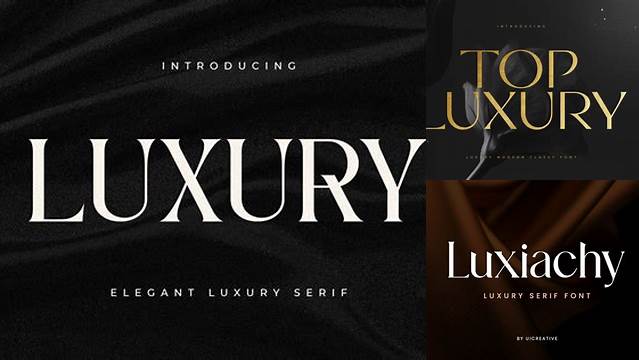
Free Luxury Fonts For Commercial Use: Download Now!
Hey guys! Are you on the hunt for that perfect luxury font to elevate your designs without breaking the bank? You've landed in the right place! Finding a luxury font that’s both free and available for commercial use can feel like searching for a needle in a haystack. But don't worry, we're here to guide you through the process and introduce you to a treasure trove of options. Whether you're designing logos, websites, marketing materials, or anything in between, the right luxury font can make all the difference. Let's dive into the world of luxury fonts and discover how you can snag them for your projects without spending a dime!
Free Serif Fonts for Luxury Designs
When it comes to exuding elegance and sophistication, serif fonts are often the go-to choice. These fonts, characterized by their small decorative strokes (serifs) at the end of each letter, have a timeless quality that makes them perfect for luxury branding. Think of high-end fashion magazines, classic book covers, and upscale restaurant menus – chances are, they're using a serif font. For your luxury font needs, the key is to find one that strikes the right balance between tradition and modernity. A well-chosen serif font can instantly elevate your design, giving it a polished and refined look. You will find plenty of these if you search for luxury font options.
Classic Serif Fonts for Commercial Projects
Classic serif fonts are the cornerstone of luxury design. Fonts like Garamond, Times New Roman, and Baskerville have been used for centuries and continue to be popular choices for their readability and elegance. These fonts evoke a sense of history and refinement, making them ideal for projects that aim to convey trustworthiness and sophistication. When selecting a classic serif for your commercial projects, consider the overall tone you want to achieve. Garamond, for example, has a slightly softer, more humanist feel, while Times New Roman is more formal and authoritative. Baskerville, with its clean lines and balanced proportions, offers a versatile option that works well in a variety of contexts. Remember, the goal with any luxury font is to create a visual experience that speaks to the quality and prestige of your brand or project.
Modern Serif Fonts for High-End Branding
For a more contemporary take on luxury, modern serif fonts are an excellent choice. These fonts, characterized by their high contrast between thick and thin strokes and their sharp, clean serifs, offer a sleek and sophisticated aesthetic. Fonts like Playfair Display, Didot, and Bodoni are popular examples of modern serifs that can add a touch of glamour to any design. Playfair Display, with its elegant curves and delicate details, is perfect for headlines and titles. Didot, known for its high contrast and refined appearance, is a favorite in the fashion industry. Bodoni, with its bold strokes and strong presence, is ideal for creating impactful logos and branding materials. When using modern serifs, pay attention to spacing and kerning to ensure optimal readability and visual appeal. A well-executed modern serif luxury font can make your brand stand out in a competitive market.
Free Downloadable Serif Fonts for Luxury Branding
Free Sans-Serif Fonts for Luxury Designs
While serif fonts often steal the spotlight when it comes to luxury design, sans-serif fonts can also play a significant role in creating a sophisticated and modern aesthetic. Sans-serif fonts, characterized by their clean, minimalist lines and lack of serifs, offer a more contemporary feel. They are particularly well-suited for digital applications, such as websites and mobile apps, where readability is paramount. However, with the right styling and context, sans-serif fonts can also be incredibly effective in print materials, adding a touch of understated elegance to your luxury designs. The key to using sans-serif fonts in a luxury context is to choose fonts that are well-designed, balanced, and versatile.
Clean Sans-Serif Fonts for Commercial Use
Clean sans-serif fonts are the workhorses of the design world, offering excellent readability and versatility. Fonts like Open Sans, Lato, and Montserrat are popular choices for their clean lines and neutral appearance. These fonts are incredibly versatile and can be used in a wide range of applications, from body text to headlines. Open Sans, designed with a focus on readability, is an excellent choice for websites and apps. Lato, with its semi-rounded details, offers a friendly and approachable feel. Montserrat, inspired by the urban typography of Buenos Aires, has a modern and geometric aesthetic. When using clean sans-serif fonts in a luxury context, consider pairing them with a more decorative serif font to create visual contrast and add interest. You can create a sophisticated and balanced design by using them as your luxury font option.
Modern Sans-Serif Fonts for Upscale Branding
For a more upscale and contemporary look, modern sans-serif fonts are an excellent option. These fonts often feature geometric shapes, clean lines, and a minimalist aesthetic. Fonts like Futura, Avenir, and Proxima Nova are popular choices for their sleek and sophisticated appearance. Futura, with its geometric shapes and timeless design, is a classic choice for luxury branding. Avenir, inspired by Futura, offers a softer and more humanist feel. Proxima Nova, with its clean lines and balanced proportions, is a versatile option that works well in a variety of contexts. When using modern sans-serif fonts for upscale branding, pay attention to the details, such as letter spacing and line height, to ensure optimal readability and visual appeal. A well-chosen modern sans-serif luxury font can help your brand project a sense of innovation and style.
Free Sans-Serif Font Downloads for Luxury Projects
Finding free sans-serif fonts for your luxury projects is easier than you might think. Many online resources offer high-quality fonts that are free for commercial use. Google Fonts, as mentioned earlier, is a fantastic resource for free fonts, offering a wide range of sans-serif options. Font Squirrel is another great option, curating a collection of fonts that are 100% free for commercial use. Additionally, websites like DaFont and Creative Market often feature designers who offer their fonts for free or at a discounted price. When downloading free fonts, always remember to check the licensing terms to ensure they allow for commercial use. This simple step can save you from potential legal issues and allow you to focus on creating beautiful designs. With so many free options available, there's no need to compromise on quality when it comes to choosing a luxury font for your projects.
Script and Handwritten Fonts for Luxury Designs
Script and handwritten fonts can add a touch of personality and elegance to your luxury designs. These fonts, which mimic the fluidity and spontaneity of handwriting, are perfect for creating a personal and intimate feel. They are often used in invitations, logos, and branding materials to convey a sense of craftsmanship and attention to detail. However, it's important to use script and handwritten fonts sparingly and in the right context, as they can be less readable than serif or sans-serif fonts. When choosing a script or handwritten luxury font, consider the overall tone and style of your project. A formal script font might be perfect for a wedding invitation, while a more casual handwritten font might be better suited for a lifestyle blog.
Elegant Script Fonts for Commercial Projects
Elegant script fonts are ideal for projects that aim to convey sophistication and refinement. These fonts often feature flowing lines, graceful curves, and intricate details. Fonts like Great Vibes, Alex Brush, and Allura are popular choices for their timeless elegance. Great Vibes, with its flowing lines and calligraphic style, is perfect for invitations and announcements. Alex Brush, with its clean and legible script, is a versatile option for logos and branding materials. Allura, with its delicate strokes and elegant flourishes, adds a touch of romance to any design. When using elegant script fonts in your commercial projects, make sure to pair them with a more readable font for body text to ensure clear communication. The right elegant script luxury font can add a touch of class to your work.
Casual Handwritten Fonts for Luxury Branding
For a more relaxed and approachable take on luxury, casual handwritten fonts are an excellent choice. These fonts often mimic the natural variations and imperfections of handwriting, adding a personal and authentic touch to your designs. Fonts like Amatic SC, Permanent Marker, and Indie Flower are popular examples of casual handwritten fonts that can bring a sense of warmth and personality to your branding. Amatic SC, with its condensed and quirky style, is perfect for headlines and titles. Permanent Marker, with its bold and messy strokes, adds a playful and energetic vibe. Indie Flower, with its whimsical and hand-drawn feel, is ideal for projects that aim to convey creativity and individuality. When using casual handwritten fonts for luxury branding, consider the overall brand personality and make sure the font aligns with your message. It’s the perfect luxury font for a brand that wants to feel approachable.
Where to Find Free Script and Handwritten Fonts for Luxury Designs
Finding free script and handwritten fonts for your luxury designs is easier than ever, thanks to the abundance of online resources. Websites like Font Squirrel, DaFont, and Creative Market offer a wide selection of free fonts, including many beautiful script and handwritten options. Font Squirrel, as mentioned earlier, curates a collection of fonts that are 100% free for commercial use. DaFont is a popular resource for finding a variety of free fonts, including script and handwritten styles. Creative Market often features designers who offer their fonts for free as part of promotional bundles. When downloading free fonts, always remember to check the licensing terms to ensure they allow for commercial use. This will help you avoid any potential legal issues and ensure that you can use your chosen luxury font with confidence. With a little bit of searching, you can discover a treasure trove of free script and handwritten fonts to elevate your designs.
Display Fonts for Luxury Headlines
Display fonts are specifically designed for use in headlines and titles, where their unique and attention-grabbing characteristics can truly shine. These fonts often feature bold and unconventional designs that are meant to capture the reader's eye. In the context of luxury design, display fonts can be used to create a strong visual impact and convey a sense of sophistication and style. When choosing a display luxury font, consider the overall tone and message of your project. A bold and geometric display font might be perfect for a modern luxury brand, while a more elegant and ornate display font might be better suited for a classic luxury brand. The right display font can be the key to making your headlines stand out and creating a lasting impression.
Bold Display Fonts for High-Impact Luxury Designs
Bold display fonts are an excellent choice for luxury designs that aim to make a statement. These fonts often feature thick strokes, strong shapes, and a commanding presence. Fonts like Bebas Neue, Montserrat Bold, and Oswald are popular examples of bold display fonts that can add a touch of sophistication to your headlines. Bebas Neue, with its clean and modern lines, is a versatile option that works well in a variety of contexts. Montserrat Bold, with its geometric and urban aesthetic, is perfect for contemporary luxury brands. Oswald, with its condensed proportions and bold strokes, is ideal for creating impactful headlines and titles. When using bold display fonts, consider the overall layout and composition of your design to ensure that the font complements the other elements. A well-chosen bold display luxury font can help your message stand out and create a memorable visual experience.
Unique Display Fonts for Standout Luxury Branding
For luxury brands that want to stand out from the crowd, unique display fonts are a must-have. These fonts often feature unconventional shapes, intricate details, and a distinctive personality. Fonts like Playfair Display Black, Raleway Black, and Lobster Two are popular choices for their unique and eye-catching designs. Playfair Display Black, with its elegant curves and bold strokes, adds a touch of drama to any headline. Raleway Black, with its geometric and minimalist aesthetic, is perfect for modern luxury brands. Lobster Two, with its script-like appearance and playful curves, adds a touch of whimsy to your designs. When using unique display fonts, it's important to consider readability and ensure that the font is still legible at larger sizes. A well-executed unique display luxury font can help your brand create a strong and memorable identity.
Free Downloadable Display Fonts for Luxury Headlines
Finding free display fonts for your luxury headlines is easier than you might think, thanks to the many online resources available. Websites like Google Fonts, Font Squirrel, and Behance offer a wide selection of free display fonts that are perfect for commercial use. Google Fonts, as mentioned earlier, is a treasure trove of free fonts, including many bold and unique display options. Font Squirrel curates a collection of fonts that are 100% free for commercial use, ensuring that you don't have to worry about licensing issues. Behance often features designers who offer their fonts for free as a way to promote their work. When downloading free fonts, always double-check the licensing terms to ensure they allow for commercial use. With a little bit of research, you can find the perfect display luxury font to elevate your headlines and make a lasting impression.
Best Practices for Using Luxury Fonts
Choosing the right luxury font is just the first step. To truly make the most of your fonts, it's important to follow best practices for typography. This includes considering factors like font pairing, readability, spacing, and overall design consistency. A well-executed typographical design can elevate your brand and create a cohesive and professional look. Conversely, poor typography can detract from your message and make your designs look amateurish. Let's explore some essential best practices for using luxury fonts effectively.
Font Pairing for Luxury Designs
Font pairing is the art of combining different fonts to create a harmonious and visually appealing design. In the context of luxury design, font pairing can be used to create a sense of balance, elegance, and sophistication. A common approach is to pair a decorative display font with a more readable body text font. For example, you might pair a bold serif display font like Playfair Display with a clean sans-serif body text font like Open Sans. Another approach is to pair two contrasting fonts that complement each other, such as a script font with a sans-serif font. When pairing fonts, it's important to consider the overall tone and style of your project and choose fonts that work well together visually. A well-executed font pairing can enhance the readability and visual appeal of your designs. You may want to pair a luxury font with a more standard font for readability.
Readability and Luxury Font Choice
Readability is a crucial consideration when choosing fonts, especially for body text. While luxury fonts can add a touch of elegance and sophistication to your designs, they should never compromise readability. Choose fonts that are easy to read at various sizes and in different contexts. Avoid using overly decorative or ornate fonts for body text, as these can be difficult to read and may tire the reader's eyes. Instead, opt for clean and legible serif or sans-serif fonts for body text and save the more decorative fonts for headlines and titles. Always test your fonts in different sizes and formats to ensure they are readable. A luxury font is only as good as its readability.
Kerning and Spacing in Luxury Typography
Kerning and spacing are essential elements of typography that can significantly impact the readability and visual appeal of your designs. Kerning refers to the adjustment of space between individual letters, while spacing refers to the overall space between words and lines. Proper kerning and spacing can make your text look more balanced and professional. In the context of luxury typography, attention to detail is key. Take the time to adjust the kerning and spacing of your fonts to ensure optimal readability and visual harmony. Avoid excessive or insufficient spacing, as this can make your text look cluttered or disjointed. Experiment with different kerning and spacing settings to find what works best for your chosen fonts. You will find the perfect setting for your luxury font with a little experimentation.
Maintaining Design Consistency with Luxury Fonts
Consistency is a fundamental principle of design, and it applies to typography as well. When using luxury fonts, it's important to maintain consistency throughout your project to create a cohesive and professional look. This means using the same fonts for the same elements, such as headlines, body text, and captions. It also means maintaining consistent font sizes, weights, and styles. Avoid using too many different fonts in a single design, as this can create a cluttered and confusing visual experience. Instead, stick to a limited palette of fonts and use them consistently throughout your project. Consistent use of your chosen luxury font will help reinforce your brand identity and create a polished and professional impression.
Where to Find More Free Luxury Fonts
We've already touched on some excellent resources for finding free luxury fonts, but let's delve a little deeper and explore some additional options. The world of free fonts is vast and ever-changing, so it's always worth exploring new websites and resources. In addition to Google Fonts, Font Squirrel, and Behance, there are many other online platforms that offer high-quality fonts for free commercial use. Let's take a look at some of these hidden gems and discover where you can find even more free luxury fonts to elevate your designs.
Exploring Google Fonts for Luxury Options
Google Fonts is a powerhouse of free fonts, offering a vast selection of typefaces that are perfect for both personal and commercial use. The platform is incredibly user-friendly, allowing you to easily browse and filter fonts based on various criteria, such as font family, category, and style. Google Fonts includes a wide range of serif, sans-serif, script, and display fonts, making it a one-stop-shop for all your luxury font needs. Some popular luxury options available on Google Fonts include Playfair Display, Montserrat, Raleway, and Lato. The best part about Google Fonts is that the fonts are easy to embed on websites and can be downloaded for use in desktop applications. If you are looking for a luxury font, you should always start your search with Google Fonts.
Font Squirrel: A Curated Collection of Free Luxury Fonts
Font Squirrel is another fantastic resource for finding free fonts for commercial use. What sets Font Squirrel apart is its carefully curated collection of fonts, ensuring that you're only browsing high-quality typefaces. The website features a wide range of fonts, including many that are suitable for luxury designs. Font Squirrel also offers a handy Font Identifier tool that allows you to identify fonts from images, which can be incredibly useful if you've seen a luxury font you love but don't know its name. When using Font Squirrel, you can rest assured that all the fonts are 100% free for commercial use, making it a reliable source for your luxury font needs. Font Squirrel is a great resource for finding hidden gems and unique typefaces.